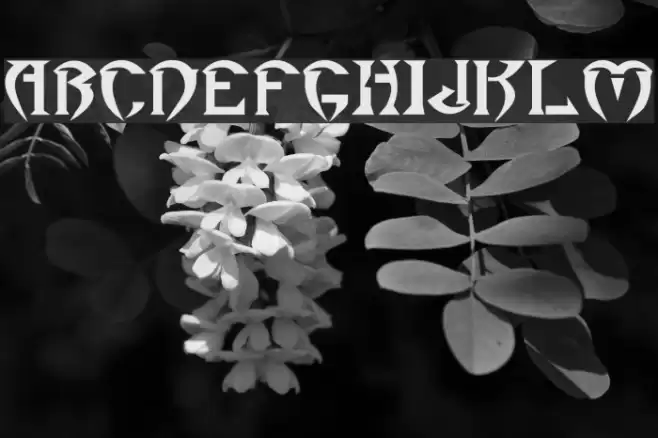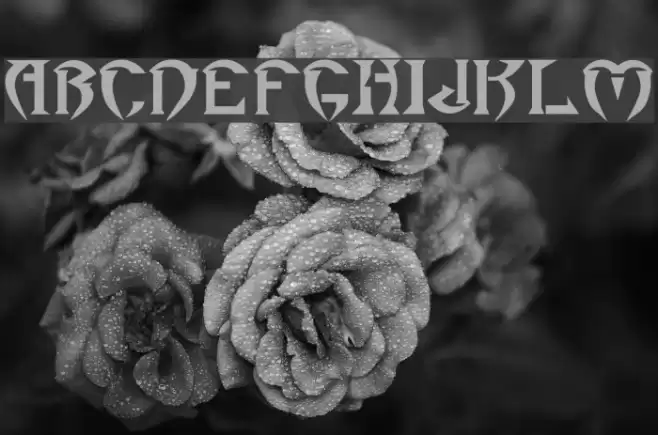
Roar Font
Roar Description
This font features a bold, angular design with sharp edges and a strong presence. The uppercase letters are highly stylized, resembling a modern take on traditional blackletter forms. The strokes are thick and consistent, creating a sense of power and authority. The absence of lowercase letters and numbers suggests a focus on impactful, large-scale applications. The special characters are not present, indicating a primary use for titles or logos where such symbols are not necessary.
A bold, angular font with a modern blackletter style from Calligraphic fonts.
- Proposed Projects: Ideal for projects requiring a strong, authoritative presence such as logos, branding for edgy products, or titles for video games and movies.
- Use Case: Logos, Headlines